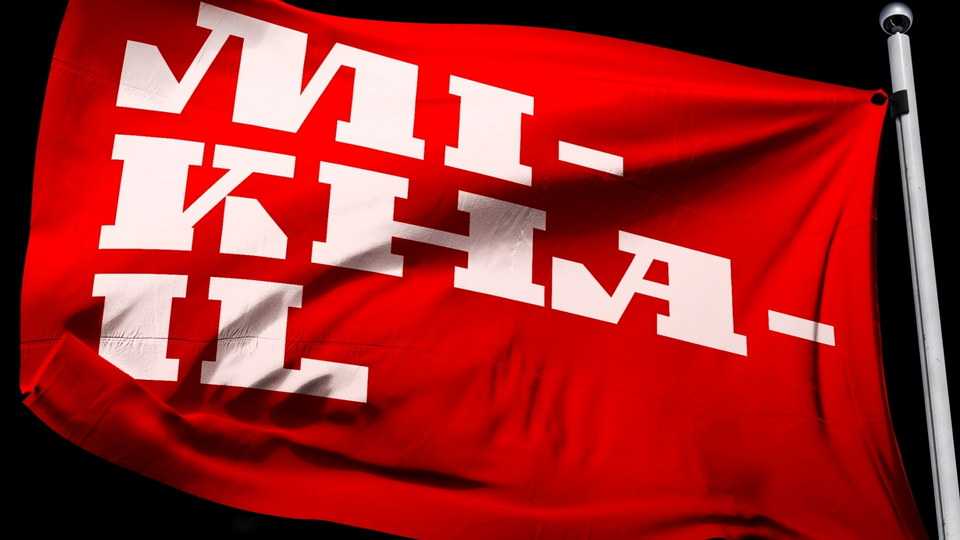
Download Mikhail font, a display slab serif typeface inspired by stability and confidence, but at the same time friendliness and openness to the West.